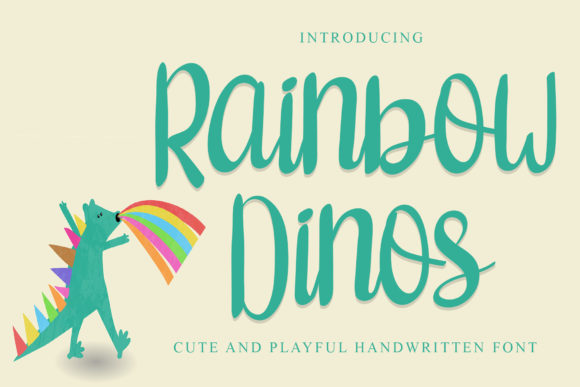
Unleash your creativity with Rainbow Dinos Font! Embark on a delightful journey into the world of whimsical typography, where imagination meets artistry. This enchanting script font, meticulously crafted by Flower, is a true masterpiece that will transform your designs into captivating works of art.
Indulge in the sheer beauty of Rainbow Dinos Font's playful and carefree strokes. Each letter dances across the page with a unique charm, adding a touch of whimsy and personality to your creations. Fall head over heels for its ravishing style, and watch as your designs come alive with a vibrant energy that's sure to leave a lasting impression.
With Rainbow Dinos Font as your creative companion, you'll effortlessly craft gorgeous wedding invitations that ooze romance and elegance. Envision your guests' faces lighting up with delight as they receive these exquisite invitations, each one a testament to your impeccable taste and attention to detail.
But the magic doesn't stop there. Rainbow Dinos Font breathes life into your stationary art, turning ordinary notes and cards into extraordinary expressions of love, gratitude, and friendship. Let your words dance across the page in a symphony of colors and curves, captivating the hearts of your loved ones.
Harness the power of Rainbow Dinos Font to create eye-catching social media posts that demand attention. Whether you're promoting your business, sharing personal updates, or simply expressing your creativity, this font will make your words shine. Watch as your engagement soars, and your followers are drawn into your captivating content.
Rainbow Dinos Font is more than just a font; it's an invitation to let your imagination run wild. So, embrace the magic, let your creativity flow, and experience the transformative power of Rainbow Dinos Font. Join countless satisfied users who have discovered the joy of designing with this remarkable font, and elevate your projects to new heights of beauty and originality.